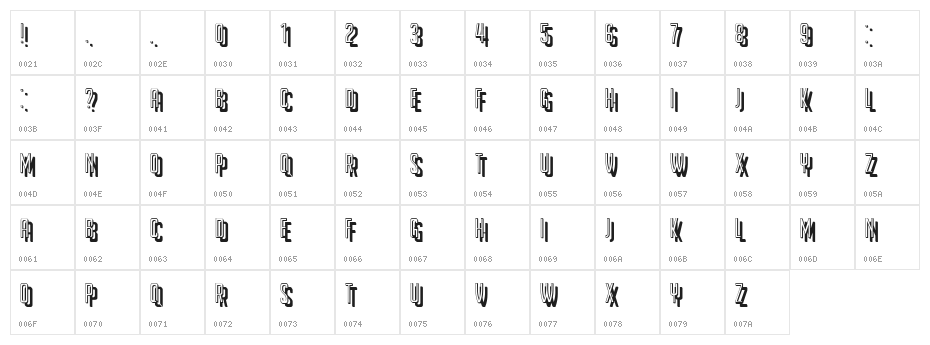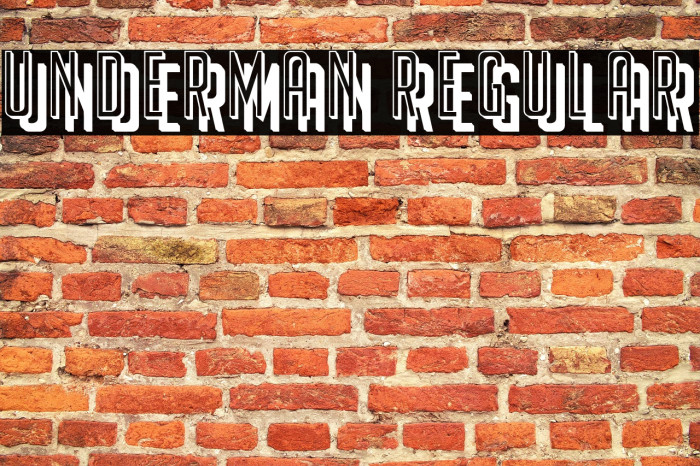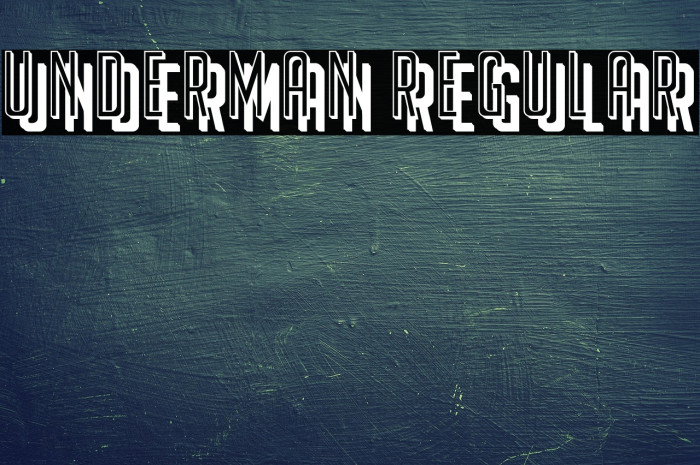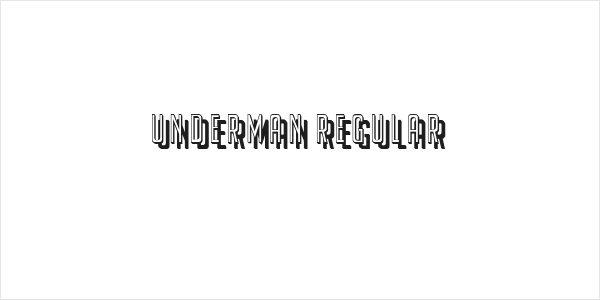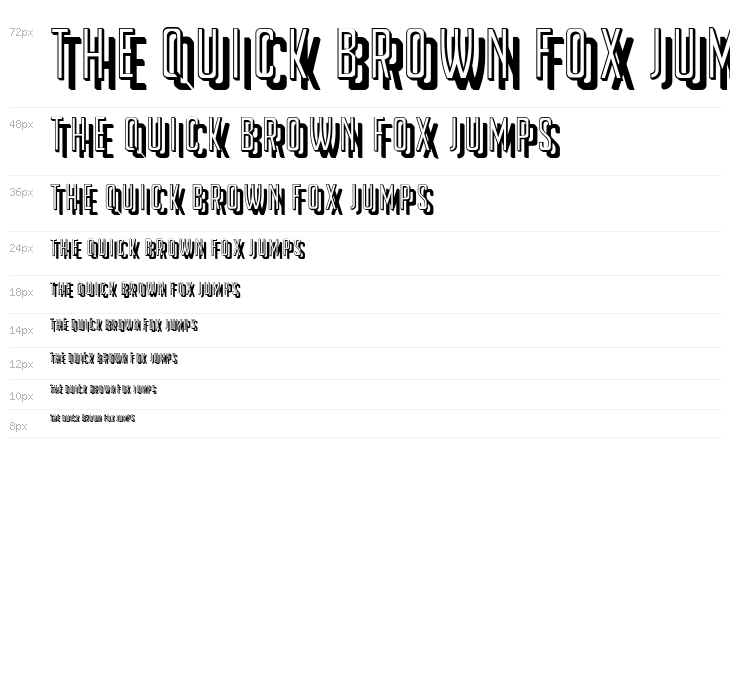
Underman Regular Font
Underman Regular Description
This font features a bold, three-dimensional effect with a shadow that gives it a striking and dynamic appearance. The letters are uppercase and have a geometric, block-like structure, which is accentuated by the shadowing that creates a sense of depth. The font maintains a consistent stroke width throughout, contributing to its bold and impactful look. The numbers and special characters follow the same design principles, ensuring uniformity across all characters. This style is reminiscent of retro or vintage signage, making it stand out with its unique aesthetic.
| Overall Style | Vintage |
| Proposed Projects | Ideal for poster designs, retro-themed branding, video game graphics, and eye-catching headlines. |